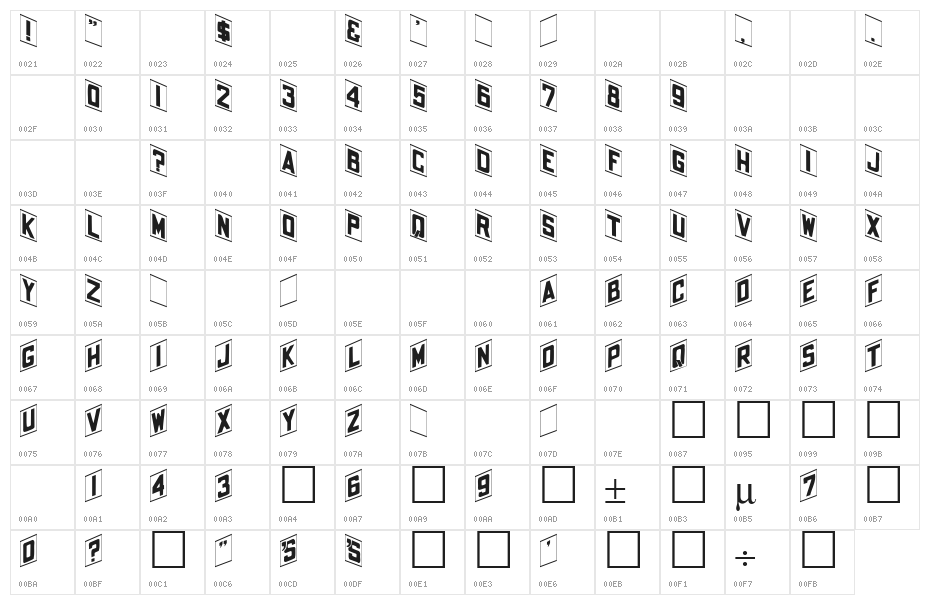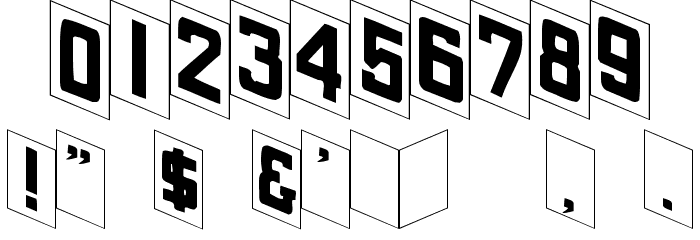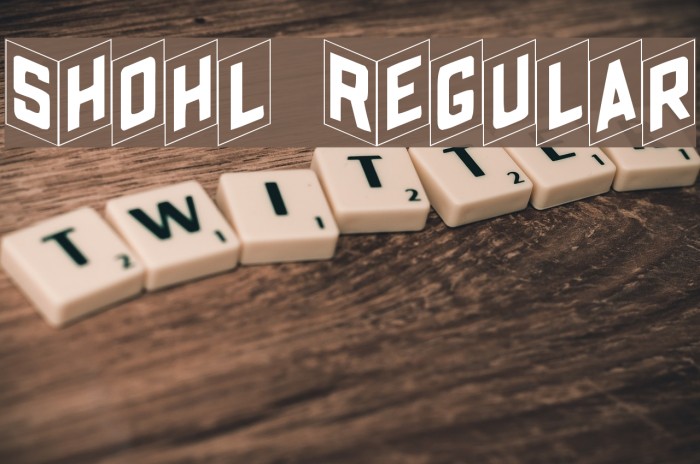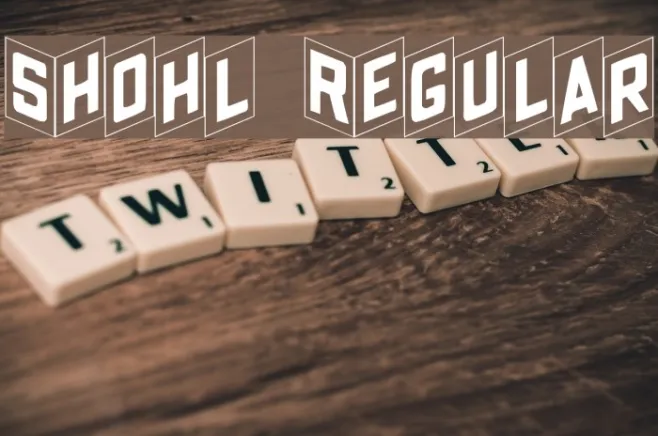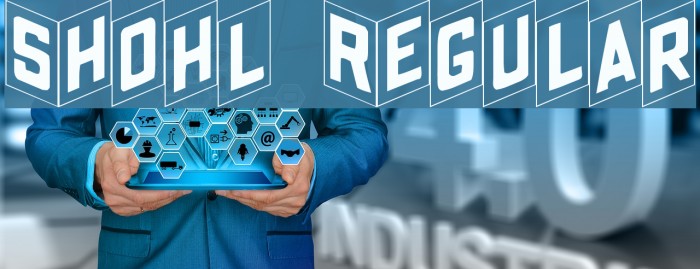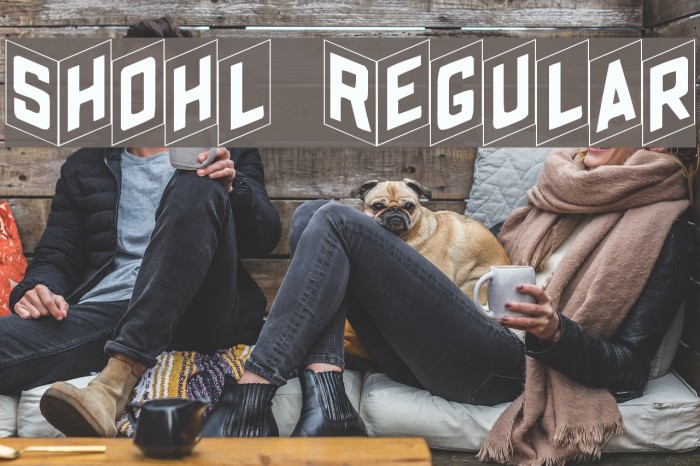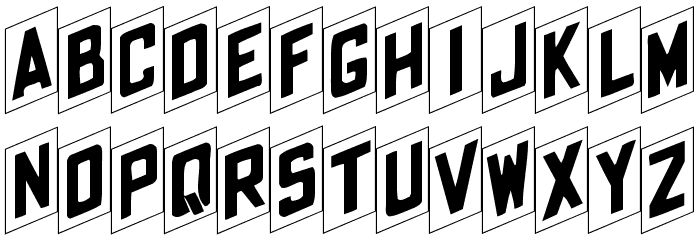
Shohl Regular Font
Shohl Regular Description
This font features a bold, geometric style with a strong three-dimensional effect. Each character is designed with a shadow that gives the appearance of depth, making it stand out prominently. The letters are uppercase and have a blocky, angular form that conveys a sense of strength and modernity. The numbers and special characters follow the same design principles, ensuring consistency across the entire typeface. The font's unique perspective and shadowing make it ideal for eye-catching designs.